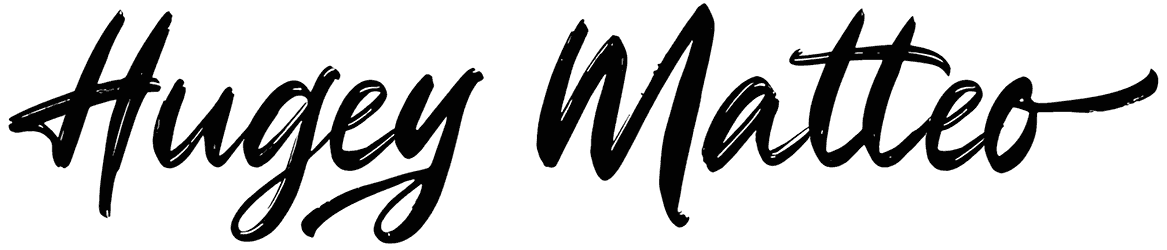
Hugey Matteo Font
Even if you have thousands of fonts in your stash, nothing beats the playfulness of Hugey Matteo. This brush font has an inspiring mode for artists who like to implement traces of painting in their writings.
What makes this font attractive is its human appeal, which, with its distinctive personality, is reminiscent of manual work. So if you’re looking to stand out on posters, greeting cards, and book covers, search the RB library for similar sample sounds.